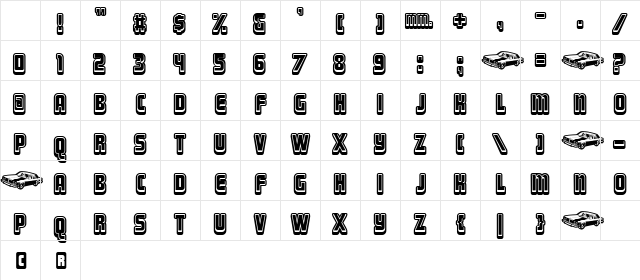
Vice Squad Regular
Design Context for Vice Squad
Vice Squad is a composed and adaptable typeface that performs quietly and consistently across a wide range of design contexts.